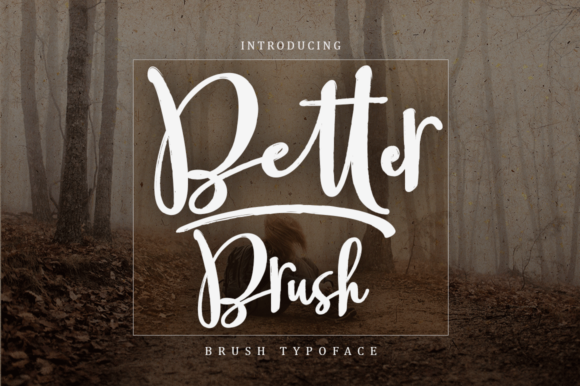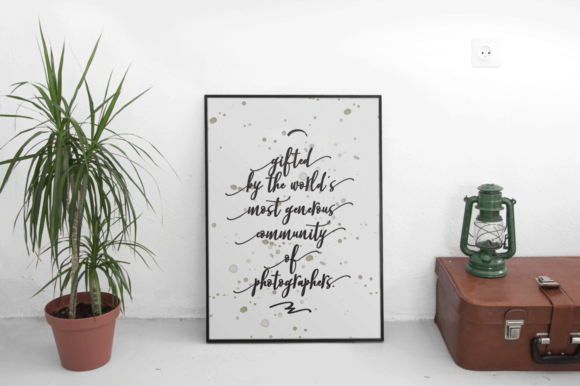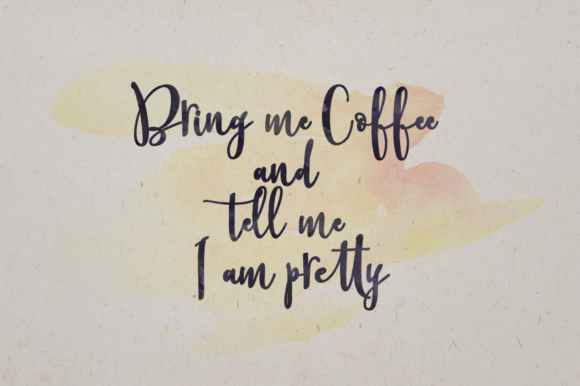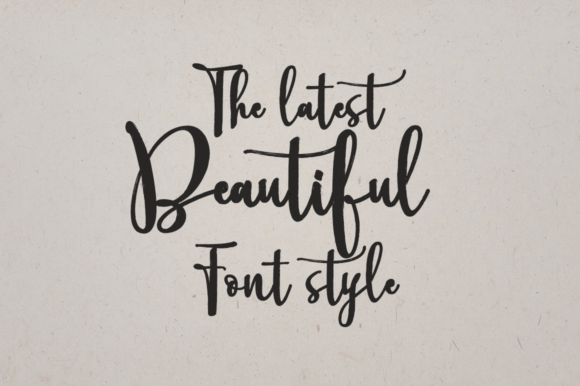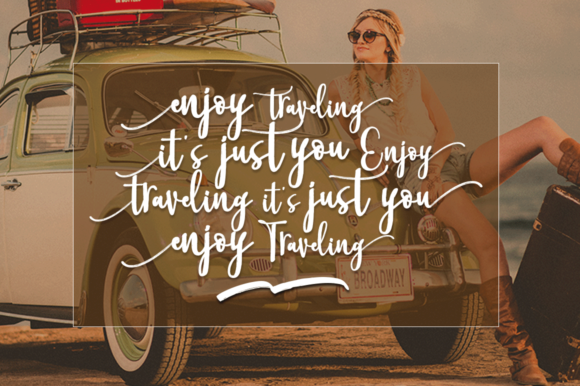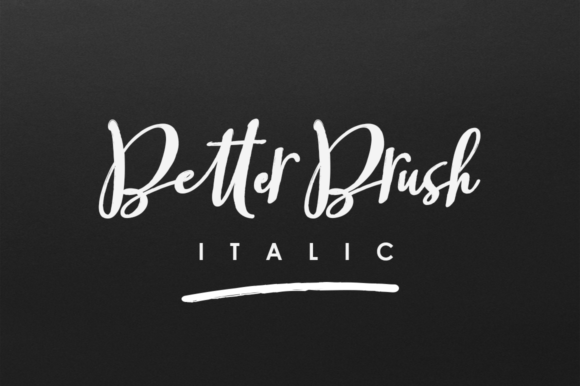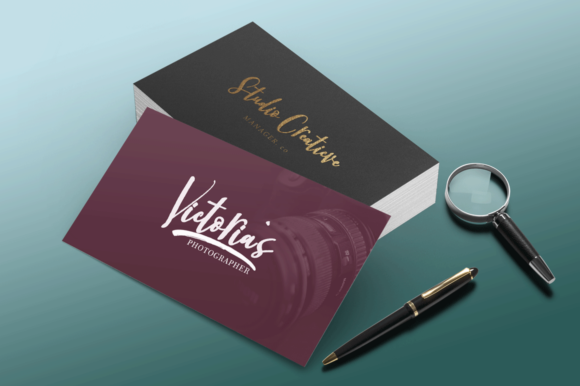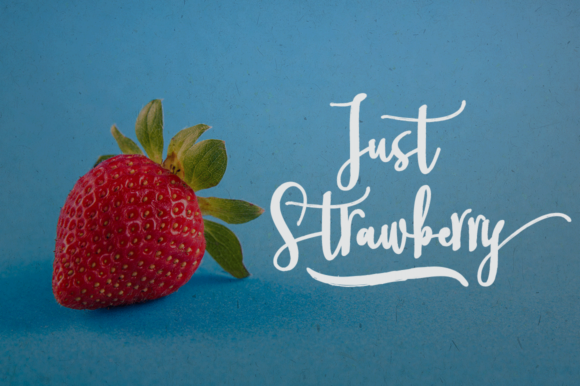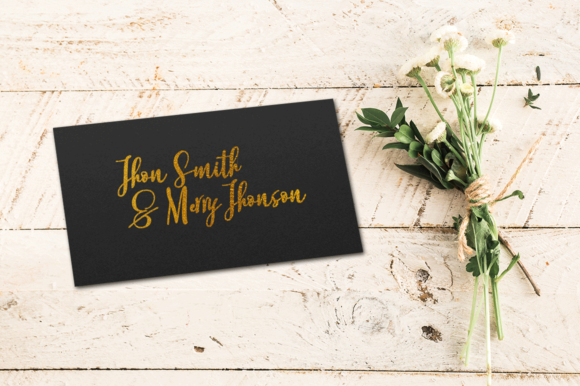
Better Brush Font
About Better Brush Font
Better Brush is a casual, fun handwritten font, created by using a brush pen. Clean and a little bit quirky, this font is the perfect fit for all of your logos, branding, social media, and crafty DIY projects.